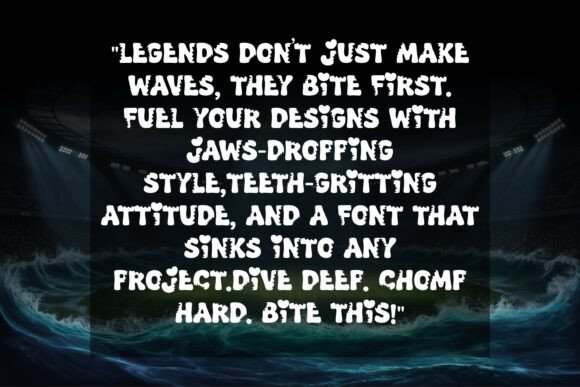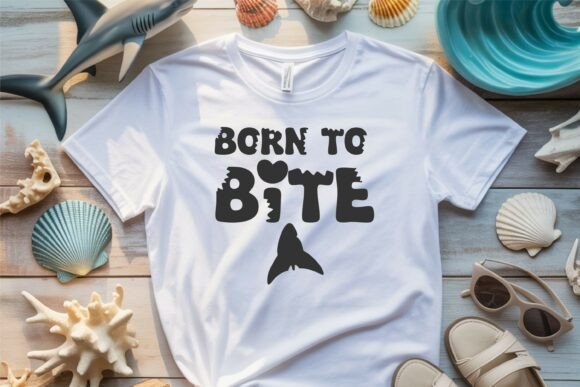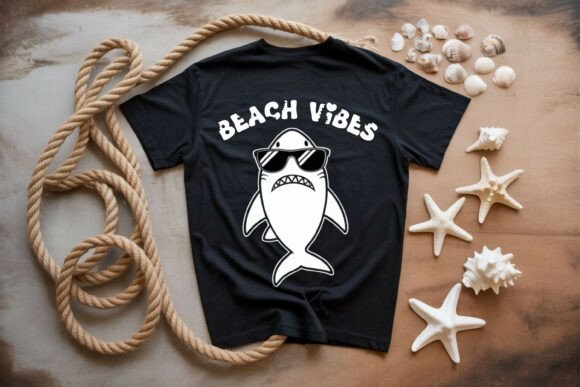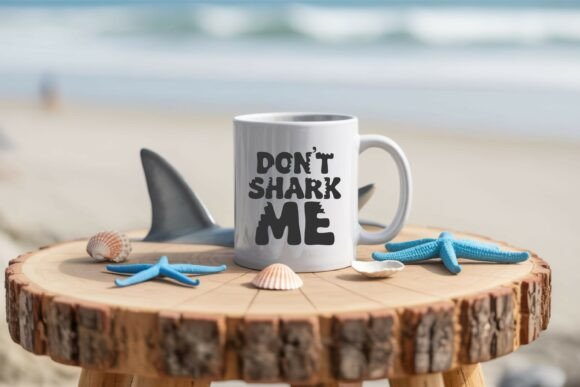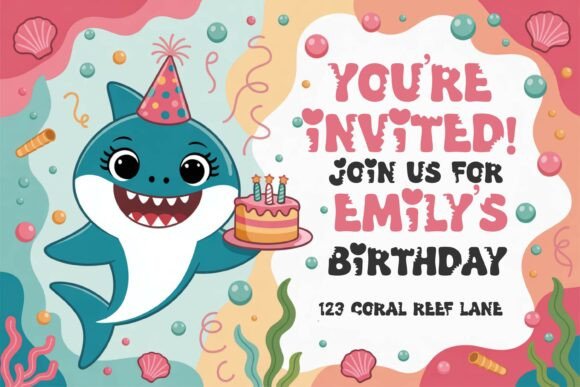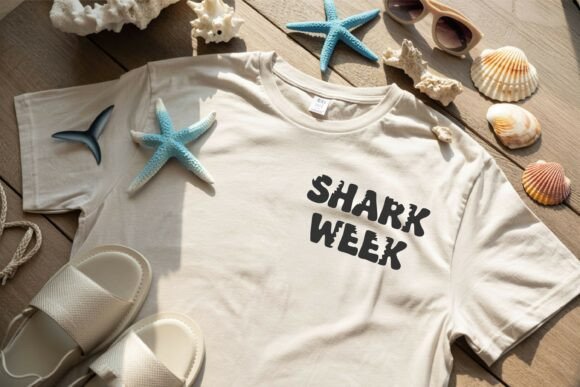
Make a Splash with Shark Bite Font: The Ultimate Typeface for Ocean-Inspired Designs
Are you ready to dive into the world of ocean-inspired designs and create a splash with your next project? Look no further than Shark Bite Font, a bold, playful typeface that’s perfect for kids’ projects, shark-themed birthday shirts, underwater party invitations, beach quotes, mugs, and Cricut crafts. This font is designed to bring a touch of fun and fierce attitude to your designs, making it ideal for designers and crafters who want to create engaging and eye-catching content.
The Unique Features of Shark Bite Font
Shark Bite Font is a one-of-a-kind typeface that’s been designed to resemble a shark’s bite. Each letter is chomped and chunky, with bite marks and heart details that add a playful touch to every design. The font is perfect for creating ocean-inspired content that’s both fun and stylish. Whether you’re designing for kids, ocean lovers, or shark fans, this font sinks its teeth into every project with style.
Shark Bite Font is versatile and can be used for a wide range of design projects, including:
- Kids’ projects: Create fun and engaging content for kids with this playful font.
- Shark-themed birthday shirts: Design custom t-shirts for shark-themed birthday parties.
- Underwater party invitations: Create eye-catching invitations for underwater-themed parties.
- Beach quotes: Add a touch of ocean vibes to your beach quotes with this unique font.
- Mugs: Design custom mugs with fun and playful phrases.
- Cricut crafts: Use this font to create custom Cricut crafts, such as signs, cards, and decorations.
Example Use Cases
Here are some example use cases for Shark Bite Font:
- Create a “Born to Bite” tee for a shark-themed birthday party.
- Design a “Swim Fast I Snacc” mug for ocean lovers.
- Make a “Dive into Fun” sign for an underwater-themed party.
Unleash Your Creativity with Shark Bite Font
Shark Bite Font is the perfect typeface for designers and crafters who want to add a touch of fun and fierce attitude to their designs. With its unique features, versatility, and ease of use, this font is sure to sink its teeth into every project with style. So, why settle for boring designs when you can make a splash with Shark Bite Font? Dive into fun, unleash your creativity, and let your next design take a bite out of boring!
In conclusion, Shark Bite Font is a must-have for designers and crafters who want to create ocean-inspired content that’s both fun and stylish. Its unique features, versatility, and ease of use make it the perfect typeface for a wide range of design projects. So, get ready to make a splash with Shark Bite Font and take your designs to the next level!